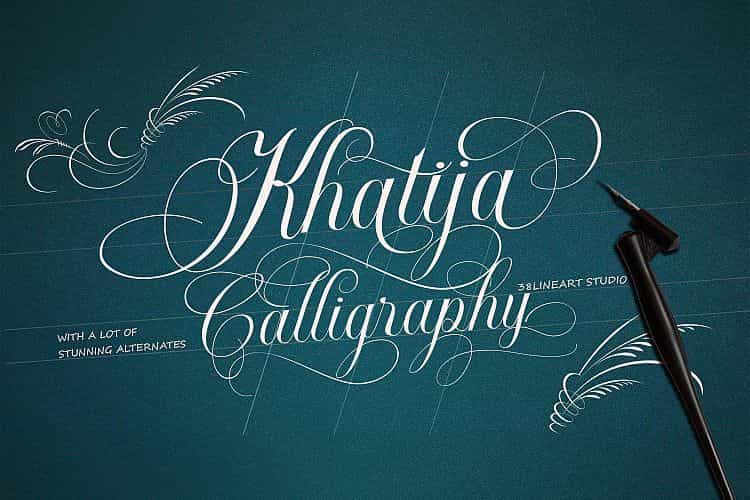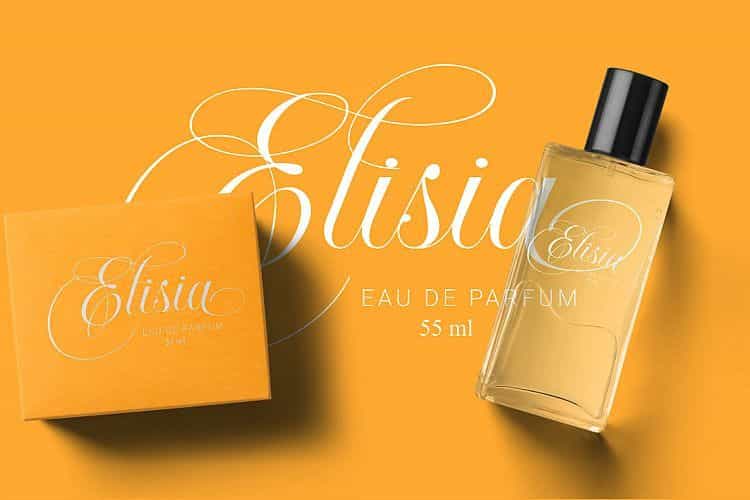
Khatija Font – This font is nice, cute and elegant. A new idea to design a logo and brand and other crafts. Khatija is created and shared by cooldesignlab. Khatija Calligraphy Font is a fantastic calligraphy font in the style of penmanship with a modern look and an eclectic concept, which was made by taking into consideration the beautiful choice models.